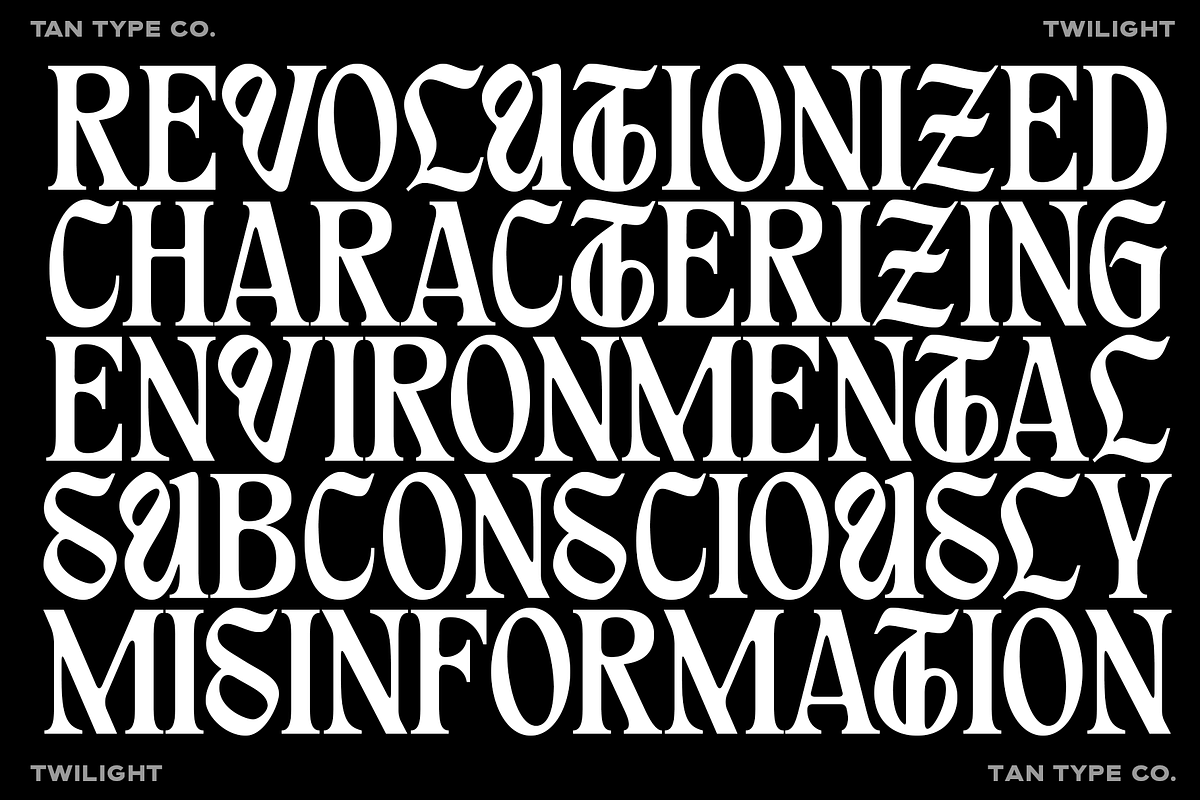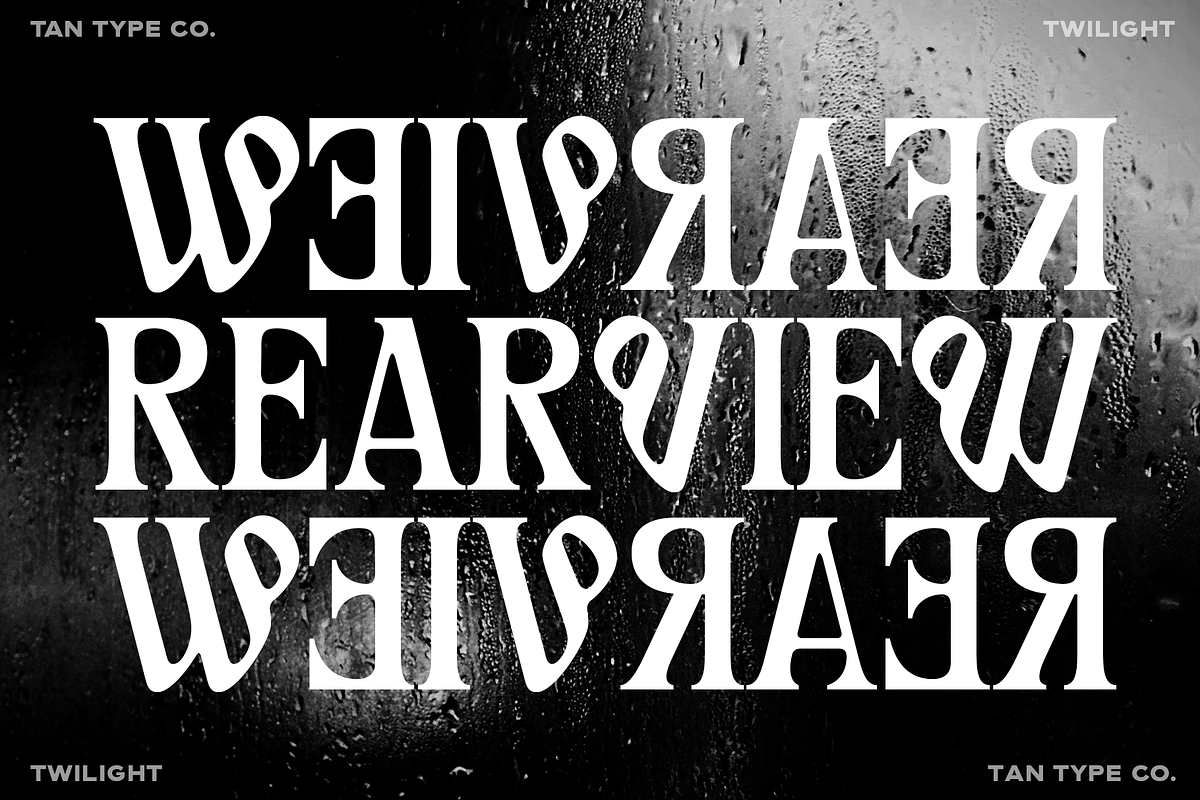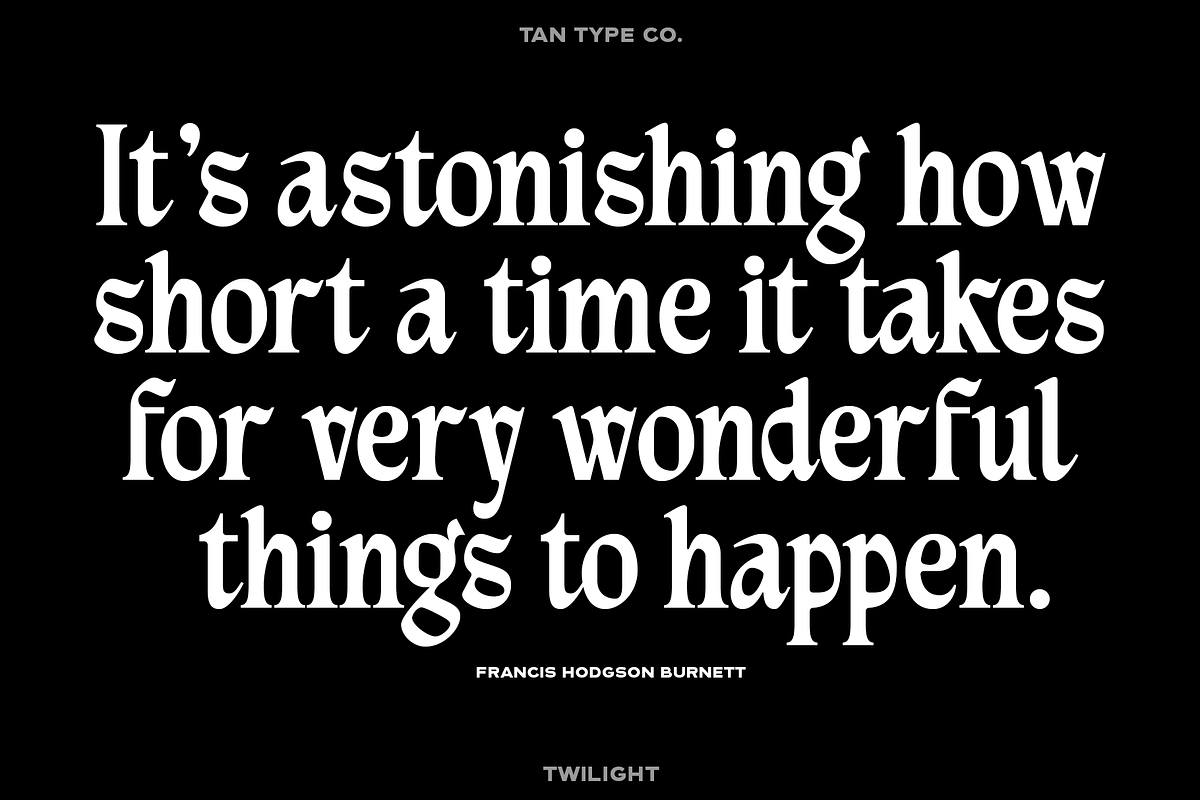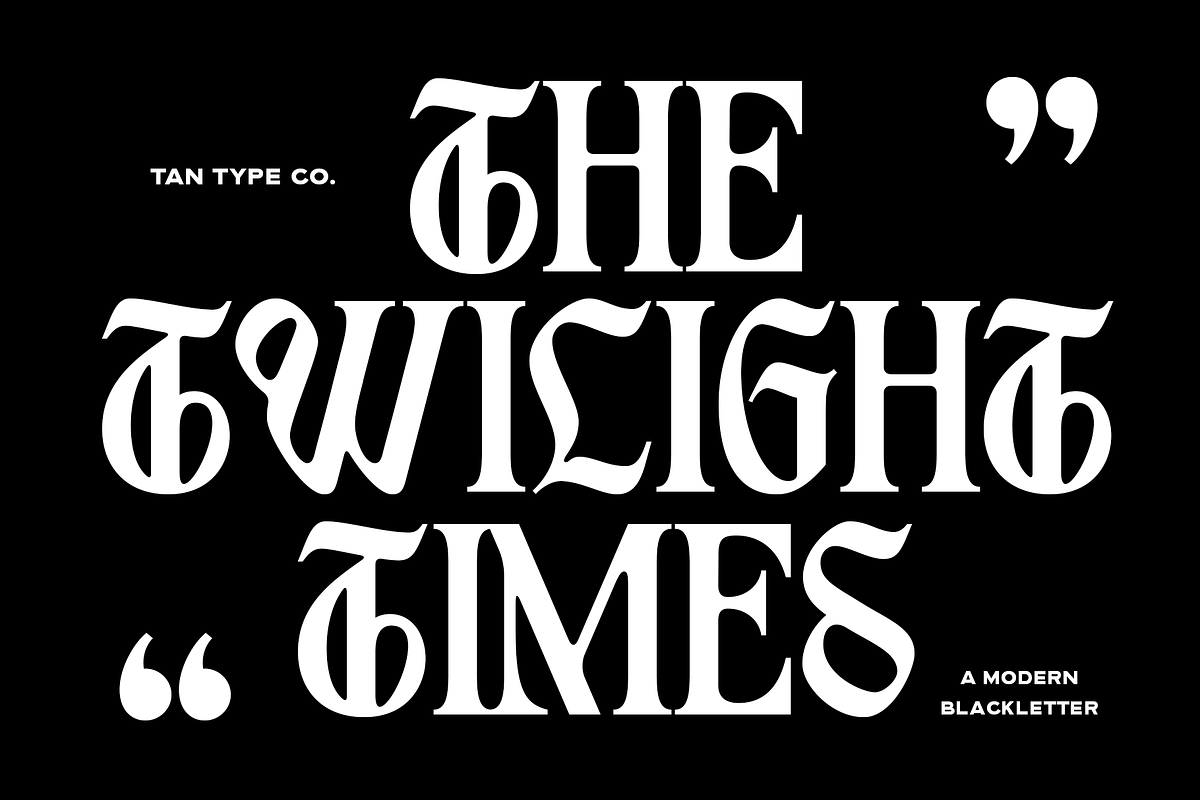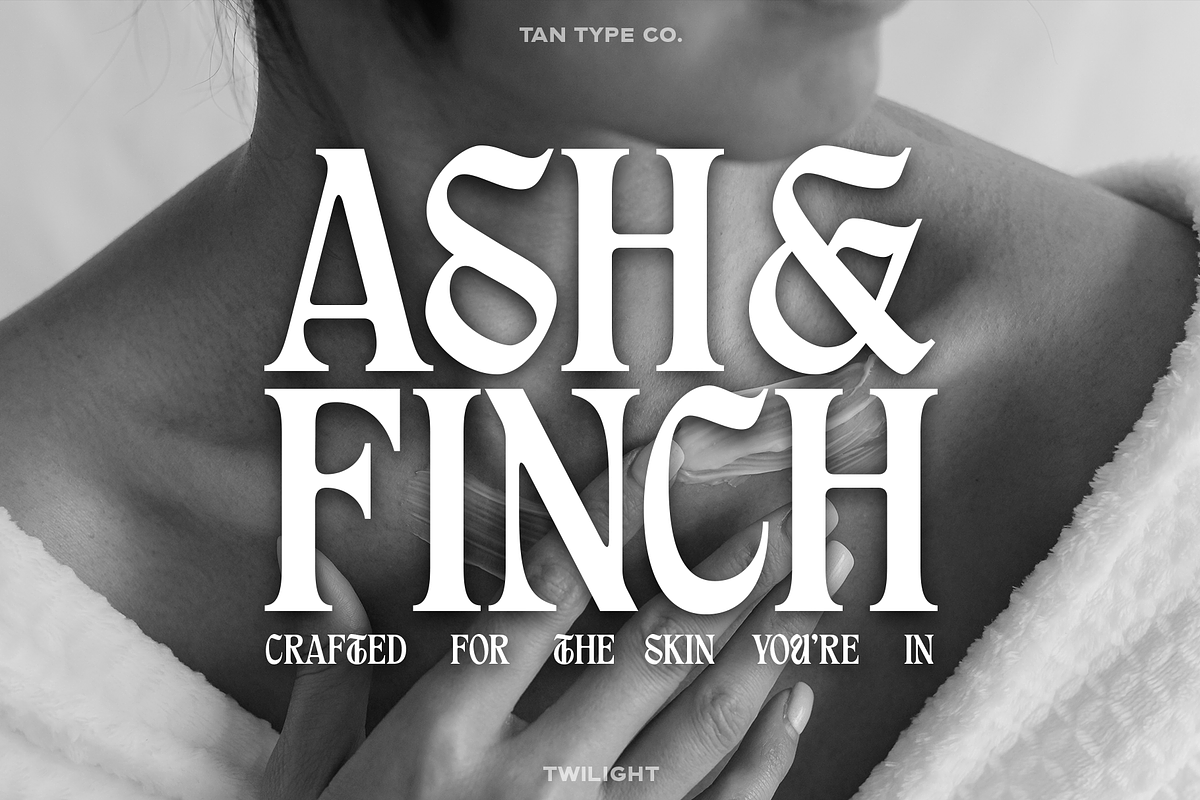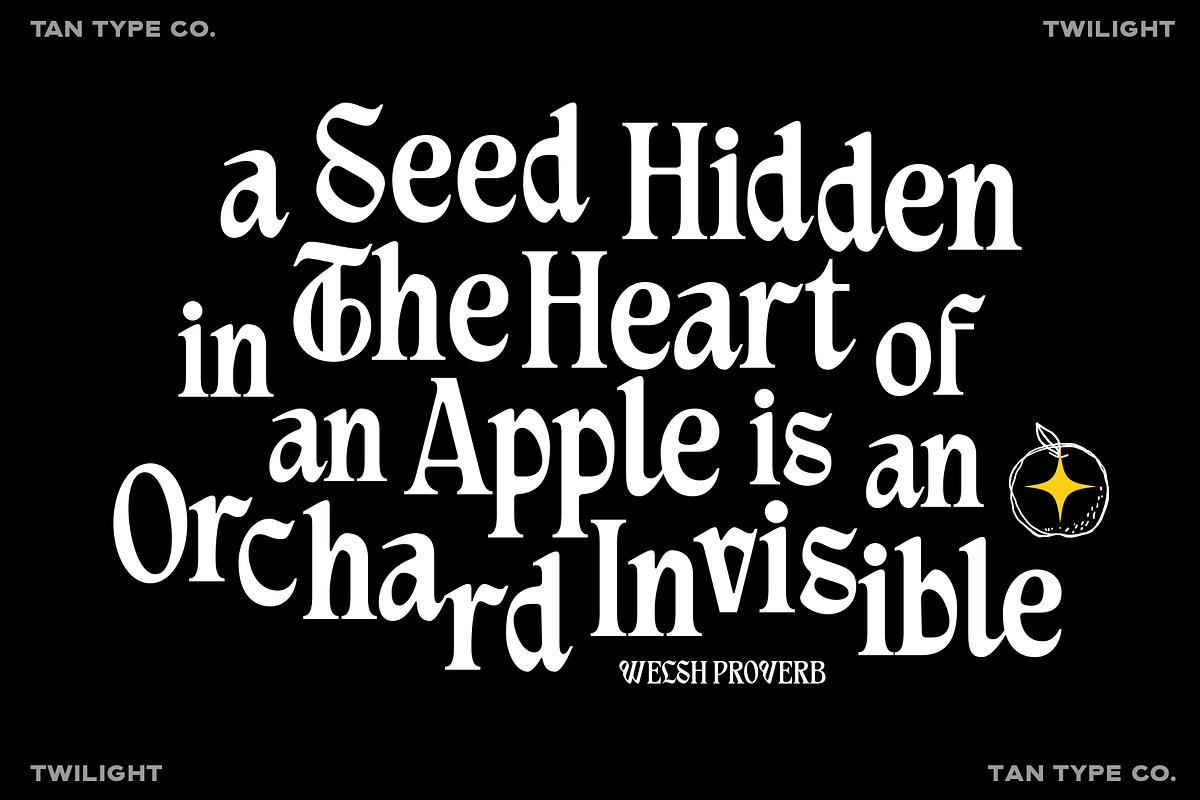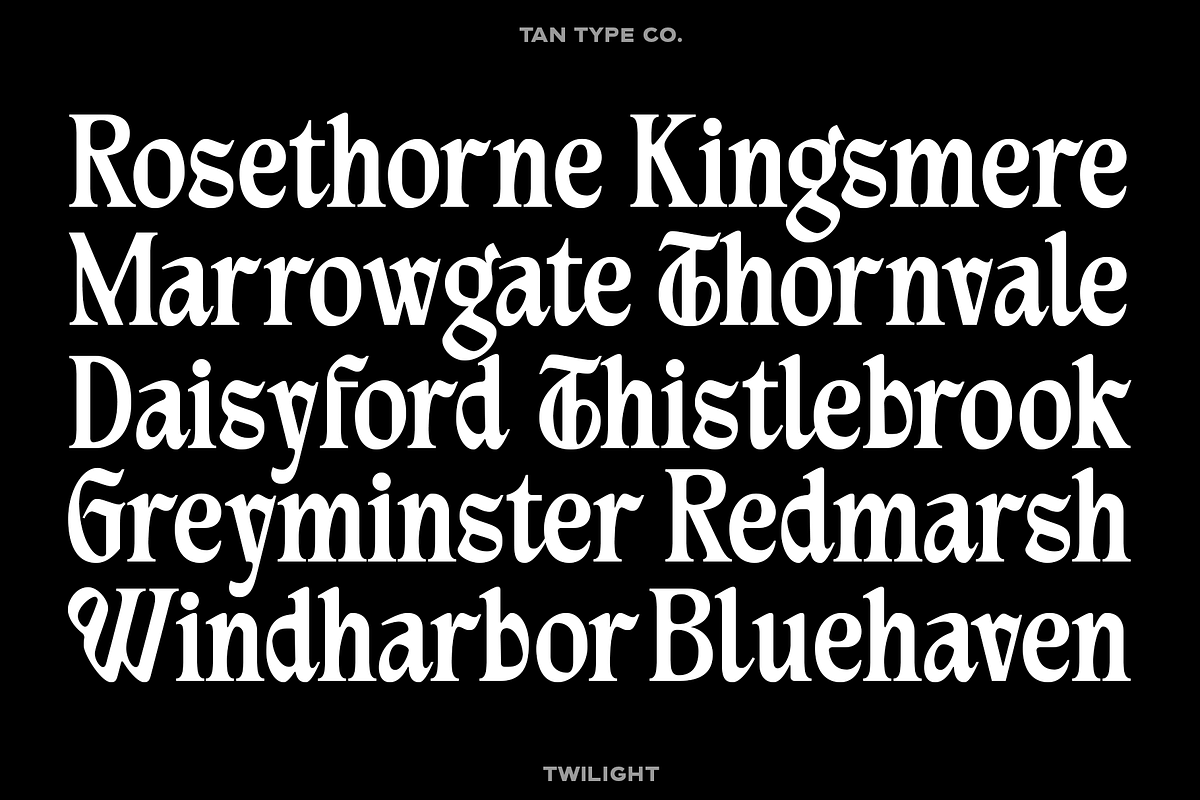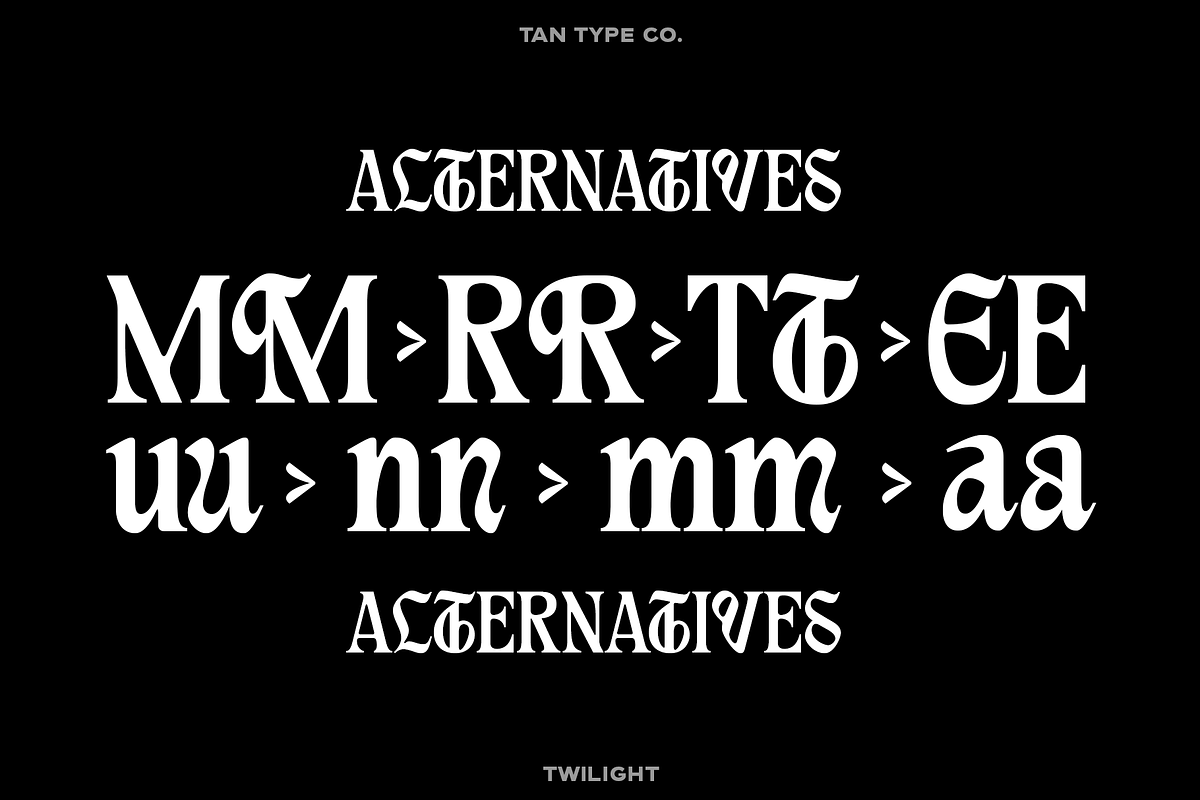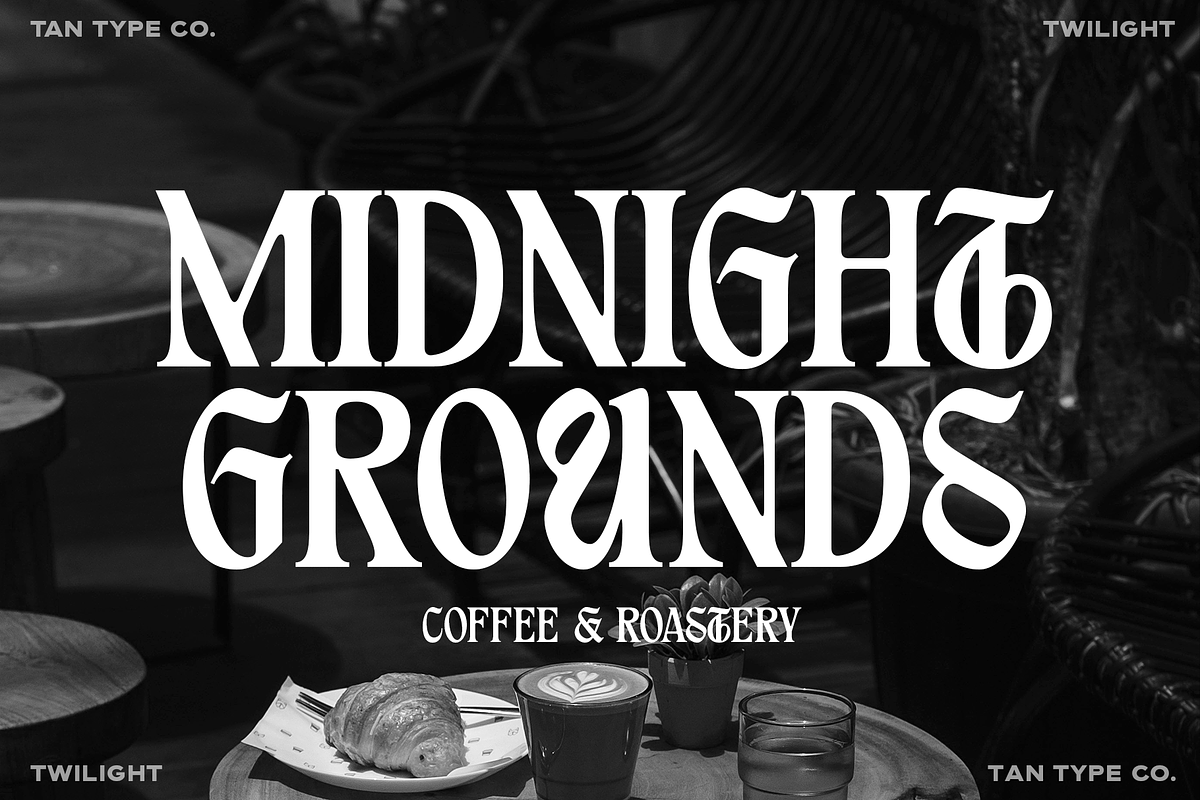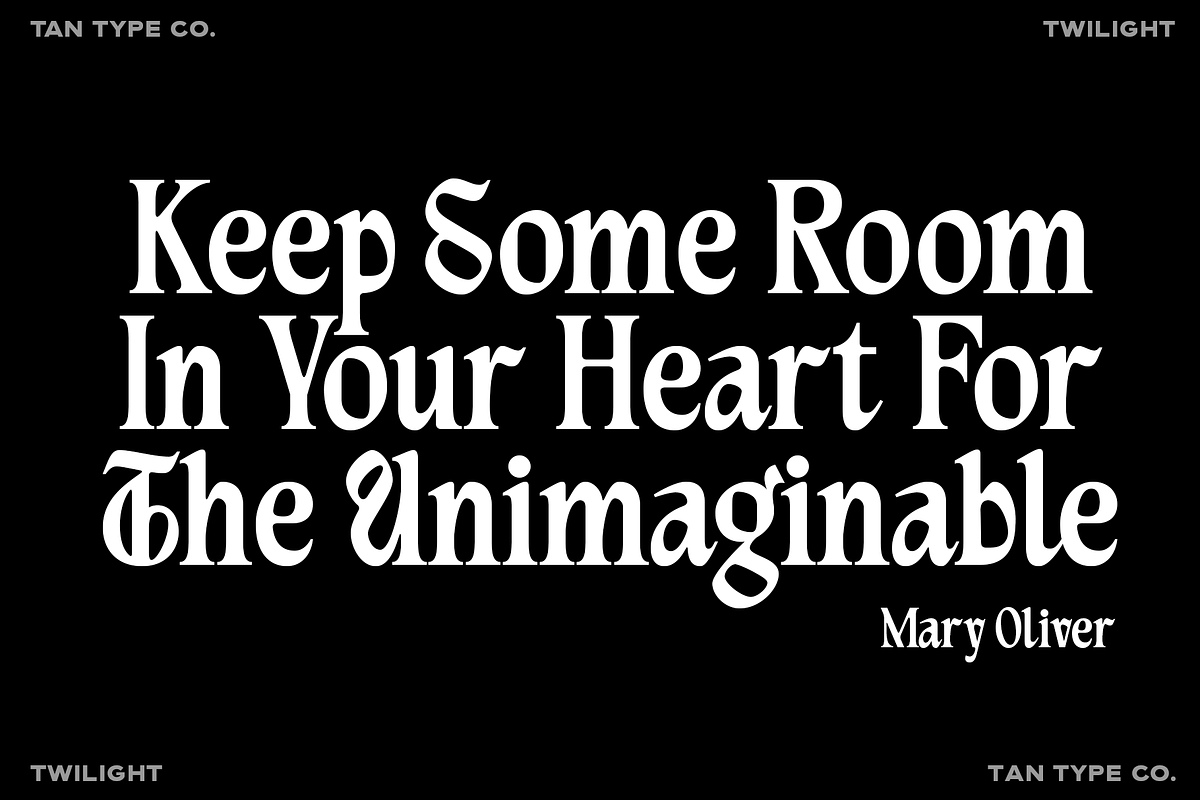
TAN - TWILIGHT
TAN – TWILIGHT is a modern take on blackletter—bold, sleek, and unexpectedly fun. With sharp, simplified forms and clean curves, it strips away the heaviness of traditional gothic fonts while keeping just enough edge. It’s dramatic without being dark, stylish without being overcomplicated. Ideal for logos, headlines, posters, and fashion branding, TAN – TWILIGHT brings a fresh, contemporary feel to a centuries-old style. Think of it as blackletter for the modern age—cool, clean, and full of character.